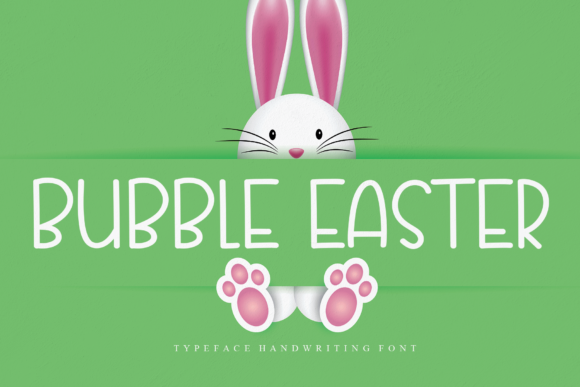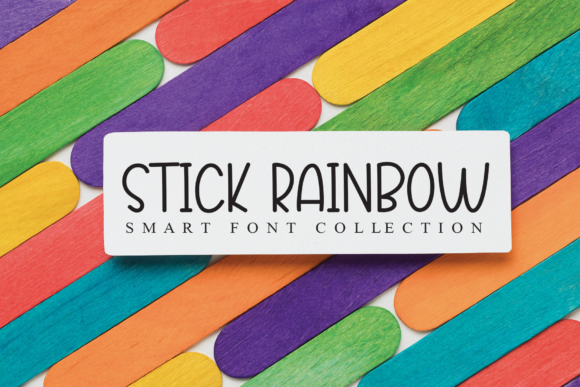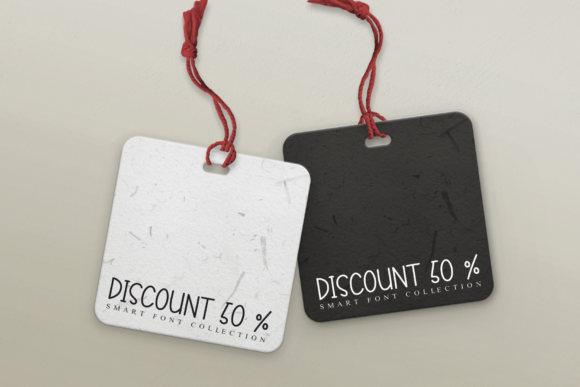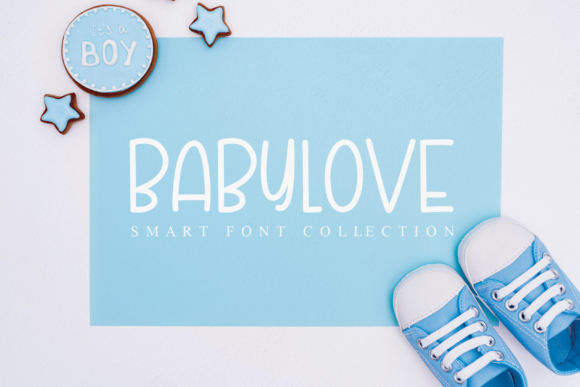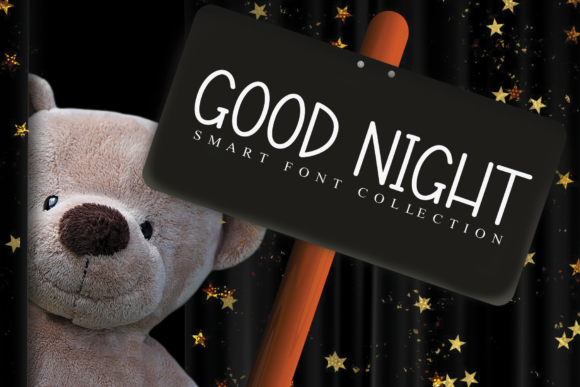
Bubble Easter Font
About Bubble Easter Font
Bubble Easter is a cute and playful script font. Use it to make your ideas even more realistic and create spectacular designs!